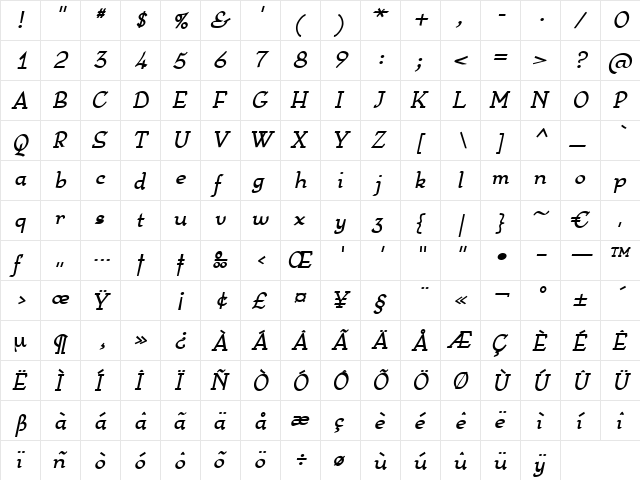
NympheBoldItalic Regular Font Preview
Design Context for NympheBoldItalic Typeface
NympheBoldItalic takes a measured approach to typography — its balanced proportions and neutral character make it a reliable workhorse for both digital and print work. The slanted form adds forward momentum and visual energy. The heavy weight commands attention and anchors typographic hierarchies.